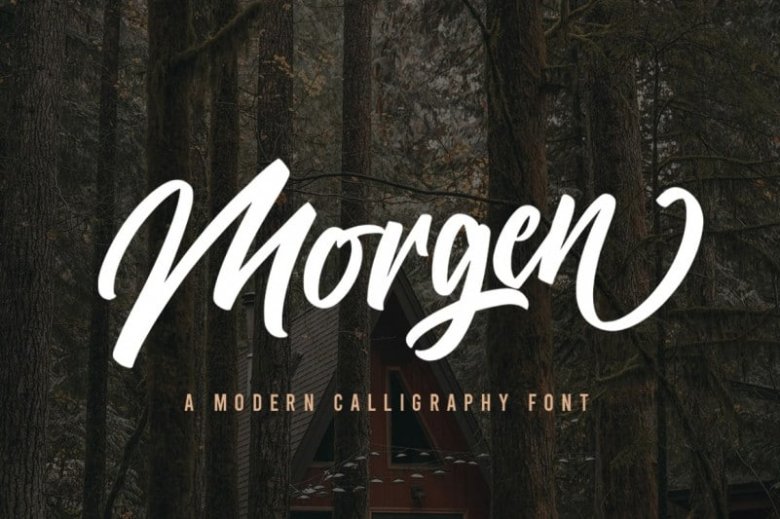
Morgen Font
Morgen Brush Font that has a distinctive character that is very thick and elegant to use. Employ it to each of your creative designs and notice how they come alive!
All characters have an imperfect shape that gives a natural look in design. It easily cooperating together and perfect for creating the traditional style logos, labels, package design, lettering for t-shirts and much others.